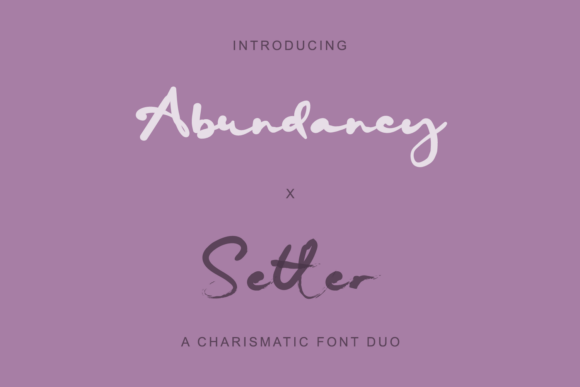
Unlock the Mystique of Abundancy X Setter Font: A Handwritten Calligraphy Duo
Immerse yourself in the beauty and artistry of Abundancy and Setter – a pair of fonts that intertwine the charm of handwritten calligraphy with an enchanting, mystic touch. This duo brings character and depth to your designs, flawlessly blending conventional and enigmatic elements. Whether you’re a designer, crafter, or simply someone who appreciates the art of typography, Abundancy X Setter Font is sure to captivate your senses and inspire your creativity.
The Art of Handwritten Calligraphy
Abundancy and Setter are meticulously crafted by proficient artists who have poured their hearts and souls into creating a truly unique and captivating font duo. These fonts embody the lovely rhythm of handwriting, yet play with a tantalizing twist of the mystical. The soft strokes and careful kerning of Abundancy and Setter allow them to stand boldly on their own, yet they beautifully complement each other when paired.
A Perfect Blend of Conventional and Enigmatic Elements
What sets Abundancy X Setter Font apart is its perfect blend of conventional and enigmatic elements. The fonts’ handwritten calligraphy style gives them a warm, organic feel that’s reminiscent of traditional craftsmanship. At the same time, the subtle mystical touch adds an air of mystery and intrigue, making them perfect for designs that require a sense of whimsy and wonder.
Design Possibilities are Endless
With Abundancy X Setter Font, the design possibilities are endless. Whether you’re working on a branding project, a wedding invitation, or a social media graphic, this font duo is sure to add a touch of magic to your designs. The fonts’ versatility and flexibility make them suitable for a wide range of applications, from elegant and sophisticated to playful and quirky.
Key Features of Abundancy X Setter Font
- Handwritten calligraphy style: Abundancy and Setter boast a beautiful, handwritten calligraphy style that’s full of character and charm.
- Mystical touch: The subtle mystical touch adds an air of enchantment and mystery to your designs.
- Soft strokes and careful kerning: The fonts’ soft strokes and careful kerning ensure that they stand boldly on their own or beautifully complement each other when paired.
- Versatile and flexible: Abundancy X Setter Font is suitable for a wide range of applications, from elegant and sophisticated to playful and quirky.
Tips for Using Abundancy X Setter Font
To get the most out of Abundancy X Setter Font, here are a few tips to keep in mind:
- Experiment with different pairings: Try pairing Abundancy and Setter with other fonts to create unique and interesting combinations.
- Play with color and texture: Add an extra layer of depth and interest to your designs by experimenting with different colors and textures.
- Use them for headlines and body text: Abundancy X Setter Font is suitable for both headlines and body text, making them a great choice for a wide range of design projects.
In conclusion, Abundancy X Setter Font is a truly unique and captivating font duo that’s sure to add a touch of magic to your designs. With their handwritten calligraphy style, mystical touch, and versatile flexibility, these fonts are perfect for designers, crafters, and anyone who appreciates the art of typography. So why not pour some magic into your projects with this captivatingly mystical handwritten font duo?
Whether you’re looking to add a touch of whimsy to your designs or simply want to create something truly special, Abundancy X Setter Font is the perfect choice. So go ahead, get creative, and let the beauty and artistry of Abundancy and Setter inspire your next design project!